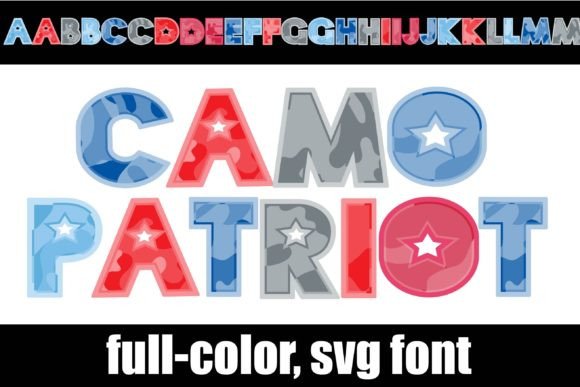
Unleashing Creativity with Camo Patriot Font: A Comprehensive Guide
I’ll never forget the time I was working on a project for a 4th of July party invitation. I wanted to create something that would grab attention and evoke a sense of patriotism. As I scrolled through font after font, nothing seemed quite right. That was until I stumbled upon the Camo Patriot Font. Its unique blend of camo print and patriotic colors instantly caught my eye, and I knew I had found the perfect fit. In this article, we’ll dive into the world of Camo Patriot Font, exploring its features, uses, and some helpful tips and tricks.
An Honest Review of Camo Patriot Font
• ✨ Unique and eye-catching design: The camo print and patriotic colors make this font stand out from the crowd.
• ✅ Full-color capabilities: This font truly shines when used in compatible programs, displaying vibrant colors that add an extra layer of depth to your designs.
• ✅ Alt case with additional colors: The alternative case offers even more color options, giving you greater flexibility and creative control.
While the Camo Patriot Font is a fantastic tool, there are a few things to keep in mind:
While the true inspiration behind Camo Patriot Font remains a mystery, it’s easy to imagine a designer who loves the outdoors and wants to bring a touch of patriotism to their work. Perhaps they were inspired by the camo prints of hunting gear and decided to combine it with bold, patriotic colors. Whatever the inspiration, the result is a font that’s both unique and eye-catching.